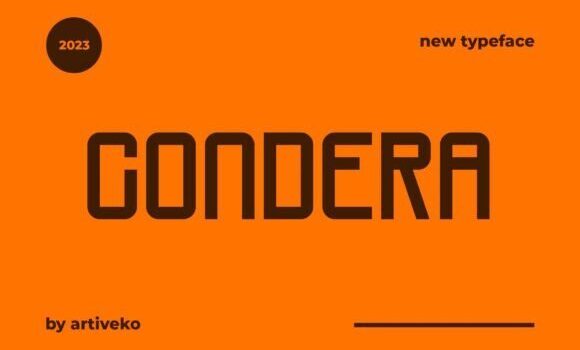
condera
Condera Font - Featured Image
Condera Font – Free Download Introduction to Condera Font Condera is a stylish and inventive sans serif font that blends clean structure with subtle artistic quirks. 📸 Preview Gallery 3 images 📌 Product Name Condera Font 👤 Author Artiveko 📂